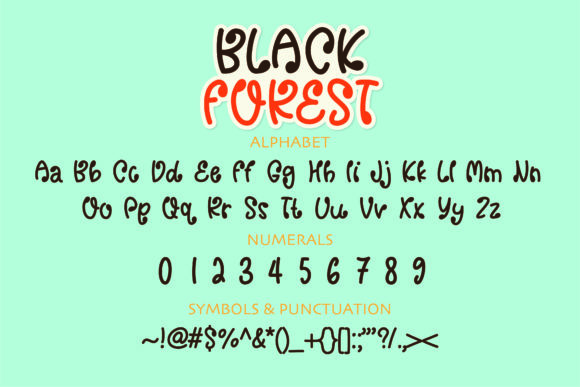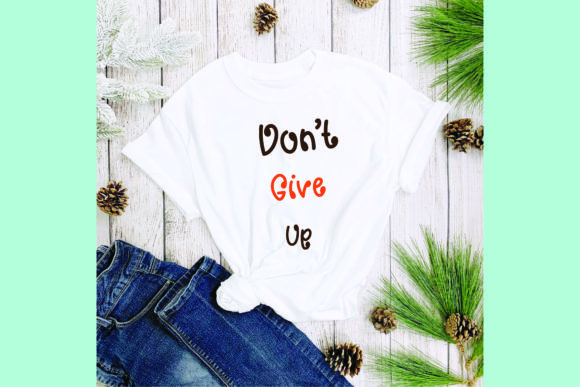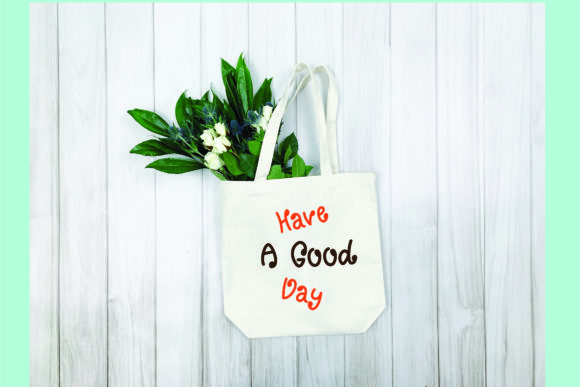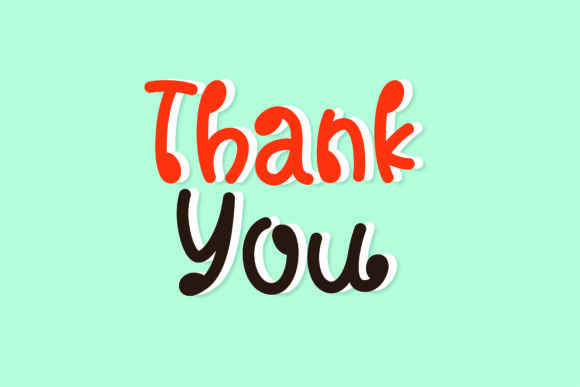
Black Forest Font
About Black Forest Font
Black Forest is a cute, quirky and friendly handwritten font. Whatever the topic, this font will be a wonderful asset to your font library, as it has the potential to enhance any creation.